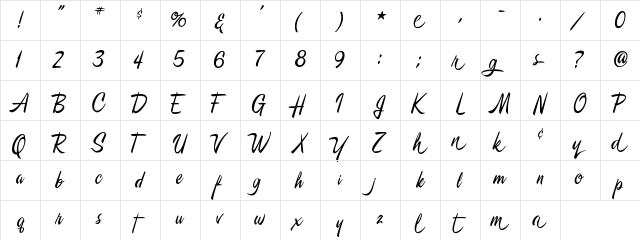
A&S Signwriter Regular
| Foundry | Art&Sign studio/SIGNFONTS |
| Designer | Steve Contreras |
Design Context for A&S Signwriter Typeface
A&S Signwriter takes a measured approach to typography — its balanced proportions and neutral character make it a reliable workhorse for both digital and print work.